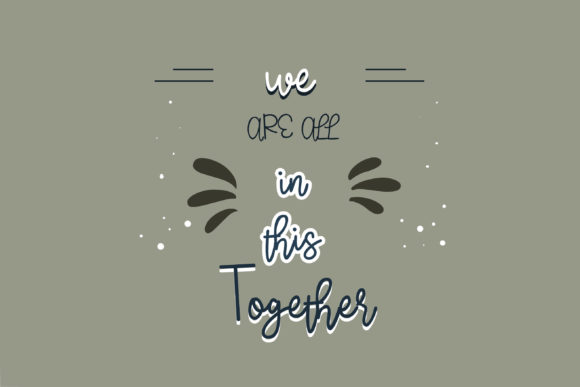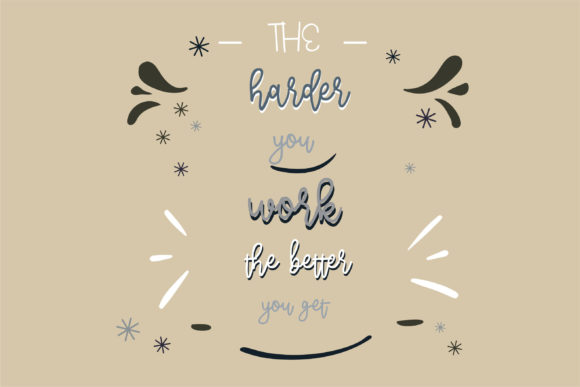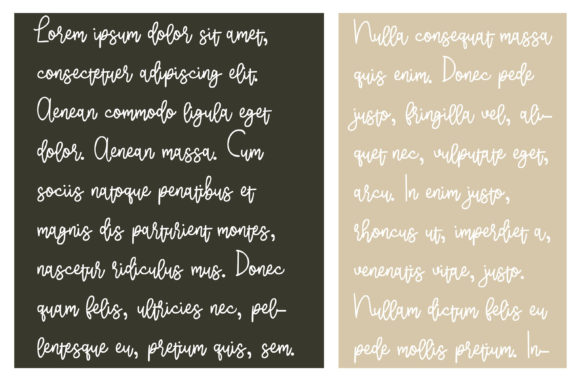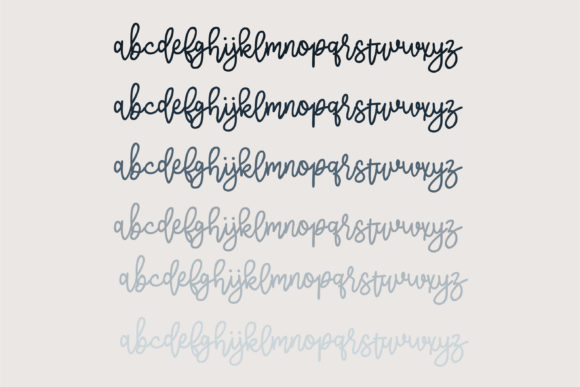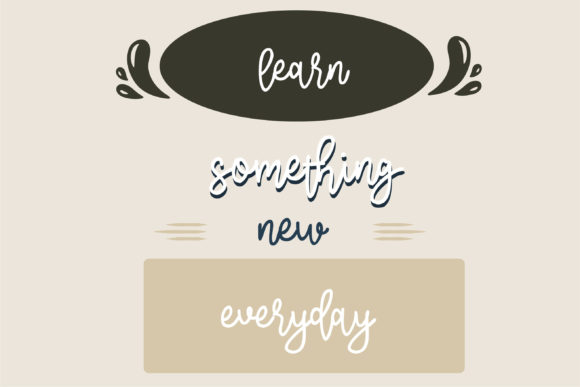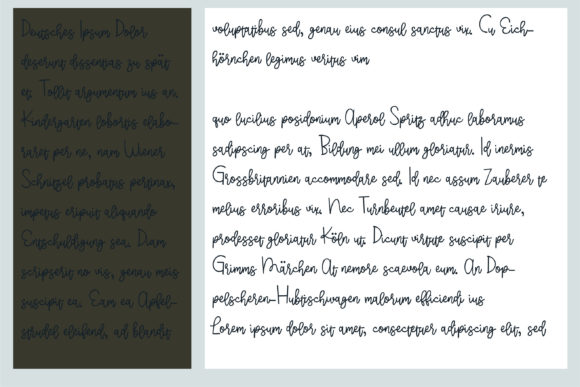
Introducing Clackpot Font: The Ultimate Chic, Fun, and Quirky Handwritten Font
Are you a designer, crafty person, or simply someone who loves to add a personal touch to their projects? Look no further than Clackpot Font, a stylish, fun, and quirky handwritten font that’s perfect for a wide range of creative endeavors. In this article, we’ll dive into the world of Clackpot Font, exploring its features, uses, and benefits, and why it’s a must-have for anyone looking to add a dash of personality to their work.
What is Clackpot Font?
Clackpot Font is a unique, handcrafted font that’s bursting with personality. Its chic, fun, and quirky design makes it an excellent choice for anyone looking to add a touch of whimsy to their projects. Whether you’re working on product packaging, branding projects, magazine covers, social media graphics, or wedding materials, Clackpot Font is the perfect companion.
Key Features of Clackpot Font
- Handwritten with love: Clackpot Font is carefully crafted by hand, giving it a personal and distinctive feel that’s hard to replicate with generic fonts.
- Chic and quirky: This font’s stylish and offbeat design makes it perfect for projects that require a bit of flair and personality.
- Versatile: Clackpot Font can be used for a wide range of projects, from product packaging and branding to social media graphics and wedding materials.
- Easy to use: With its clear and legible design, Clackpot Font is easy to read and works well in both digital and print formats.
Uses of Clackpot Font
So, what can you use Clackpot Font for? The possibilities are endless! Here are some ideas to get you started:
- Product packaging: Add a touch of personality to your product packaging with Clackpot Font. It’s perfect for labels, tags, and other packaging materials.
- Branding projects: Use Clackpot Font to create unique and memorable branding materials, such as business cards, letterheads, and brochures.
- Magazine covers: Make your magazine cover stand out with Clackpot Font. Its eye-catching design is sure to grab attention.
- Social media graphics: Add some personality to your social media graphics with Clackpot Font. It’s perfect for creating engaging and shareable content.
- Wedding materials: Use Clackpot Font to create beautiful and unique wedding materials, such as invitations, programs, and place cards.
Benefits of Using Clackpot Font
So, why choose Clackpot Font for your projects? Here are just a few benefits:
- Adds personality: Clackpot Font adds a touch of personality and whimsy to your projects, making them stand out from the crowd.
- Easy to use: With its clear and legible design, Clackpot Font is easy to read and works well in both digital and print formats.
- Versatile: Clackpot Font can be used for a wide range of projects, making it a great addition to any designer’s toolkit.
- Unique: Clackpot Font is a one-of-a-kind font that’s sure to make your projects stand out from the crowd.
In conclusion, Clackpot Font is a must-have for designers, crafters, and anyone looking to add a touch of personality to their projects. Its chic, fun, and quirky design makes it perfect for a wide range of creative endeavors, from product packaging and branding to social media graphics and wedding materials. With its ease of use, versatility, and unique design, Clackpot Font is sure to become a favorite in your design toolkit.